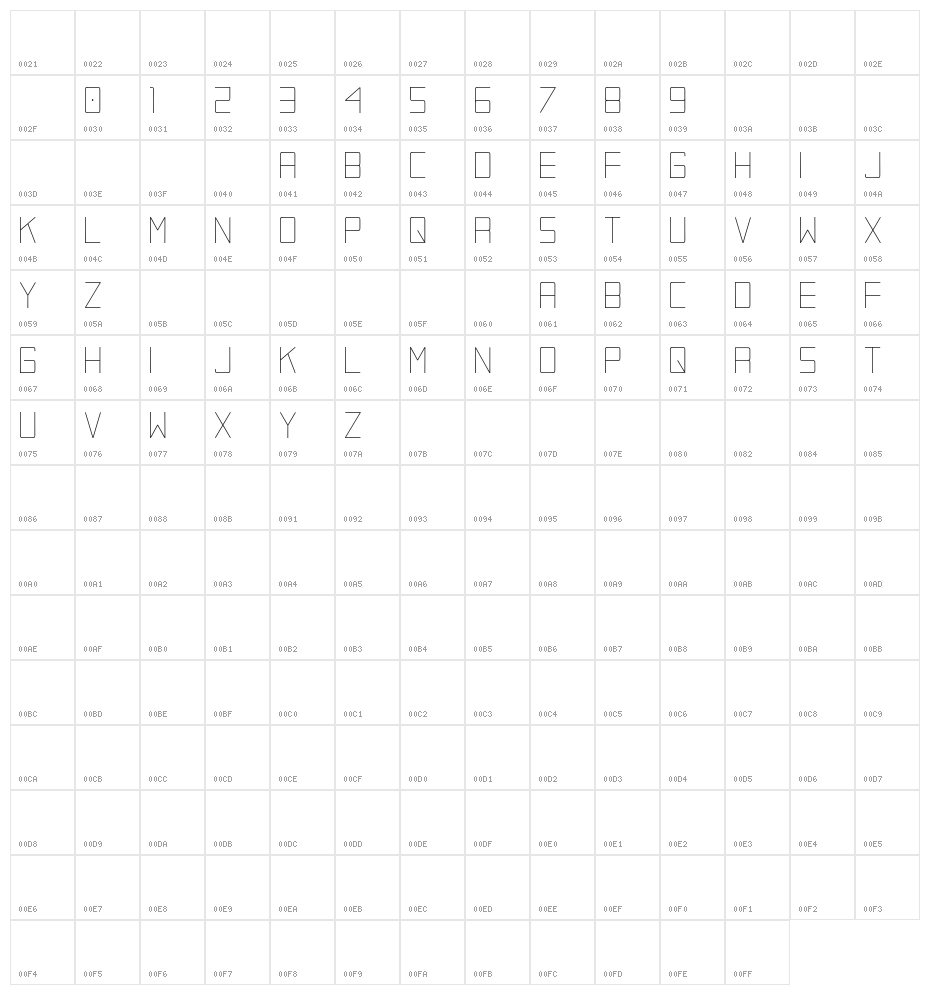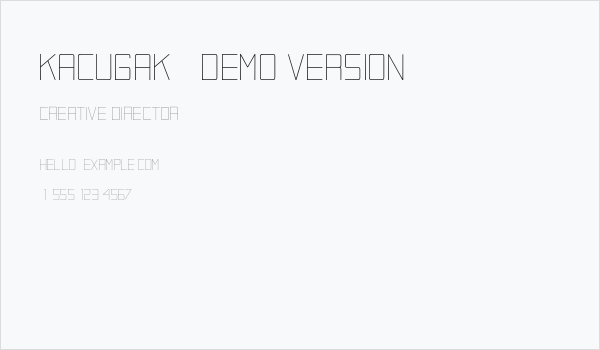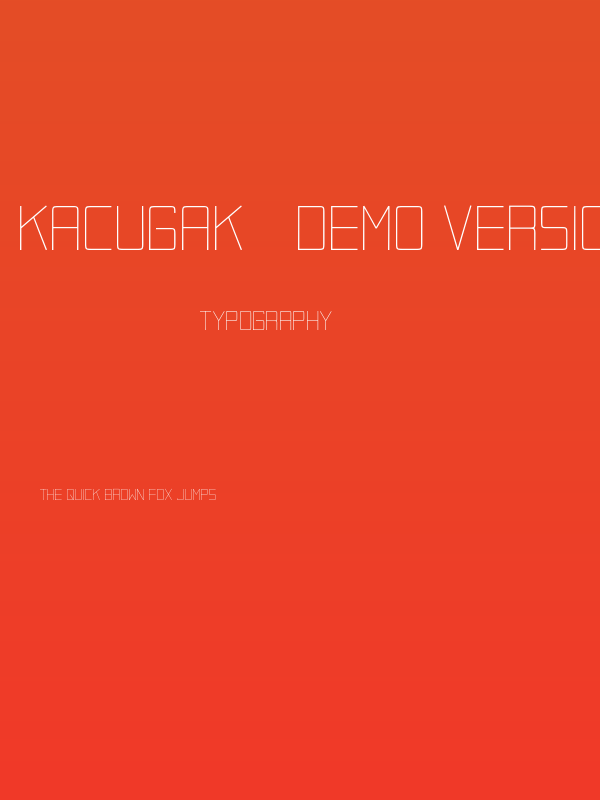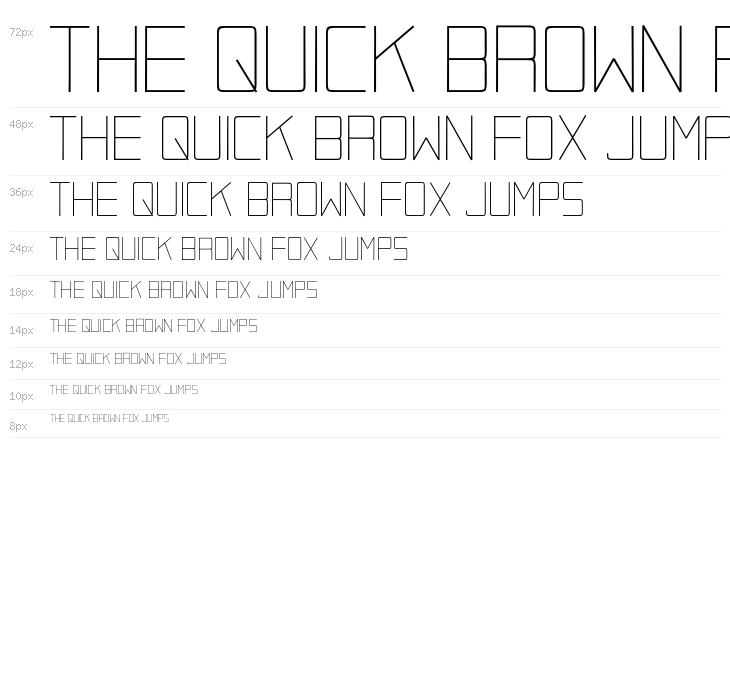
Kacugak - demo version Font
Kacugak - demo version Description
This font features a geometric and minimalist design, characterized by its thin, uniform lines and angular shapes. The uppercase and lowercase letters maintain a consistent height, creating a harmonious and balanced appearance. The numerals are designed with the same geometric precision, ensuring a cohesive look across all characters. The overall style is modern and sleek, making it suitable for contemporary design projects. The font's simplicity and clarity make it highly legible, even at smaller sizes, while its unique angular elements add a touch of sophistication.
| Use Case | Headlines, Logos, Tech interfaces |
| Proposed Projects | Ideal for branding, tech-related projects, modern art displays, and minimalist design themes. |